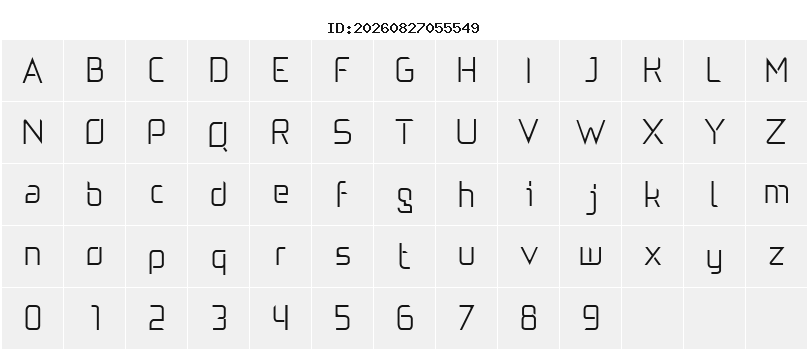
• Font Name: 5E
• Full Font Name: 5E
About 5E.ttf
5E.ttf is a modern, elegant sans-serif font designed for ultimate readability and visual harmony. Perfect for branding, headlines, web design, and print materials.